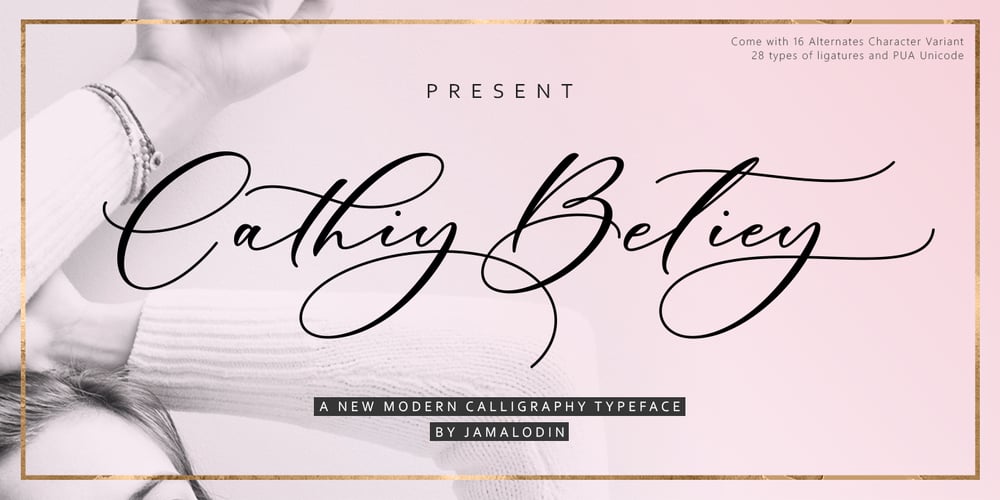
Cathiy Betiey Font Family was designed by Jamaluddin and published by Jamalodin. Cathiy Betiey contains 1 styles and family package options. Cathiy Betiey Script is a beautiful modern calligraphy script font that is suitable for branding, wedding invitations, greeting cards, posters, name card, quotes, blog header, logo, fashion, apparel, letter, stationery and other projects.The alternative characters were divided into several Open Type features such as Swash, Stylistic Sets, Stylistic Alternates, Contextual Alternates. The Open Type features can be accessed by using Open Type savvy programs such as Adobe Illustrator, Adobe InDesign, Adobe Photoshop Corel Draw X version, And Microsoft Word. And this Font has given PUA unicode (specially coded fonts). so that all the alternate characters can easily be accessed in full by a craftsman or designer.